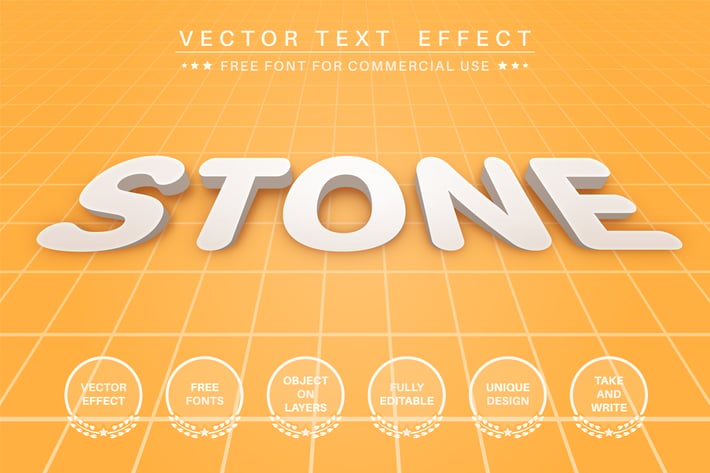
3D Stone - editable text effect, font style
Hello! I'm happy to introduce my new text effect "3D stone". Just write your word and the effect will apply! Be as creative as you like to be in expressing yourself using this unique “3D stone”. Effect is perfect for any project that needs a unique handy touch whatever else your imagination leads you to!